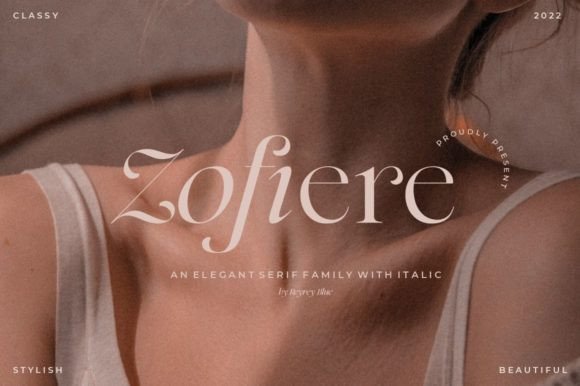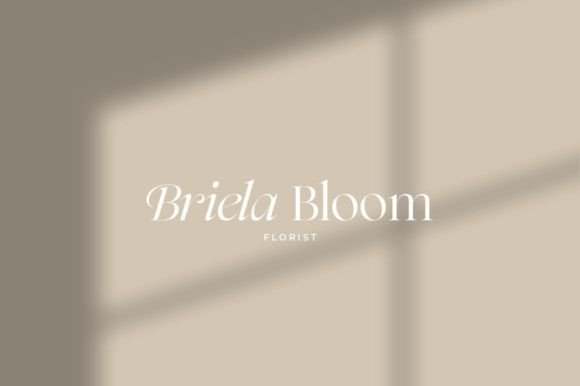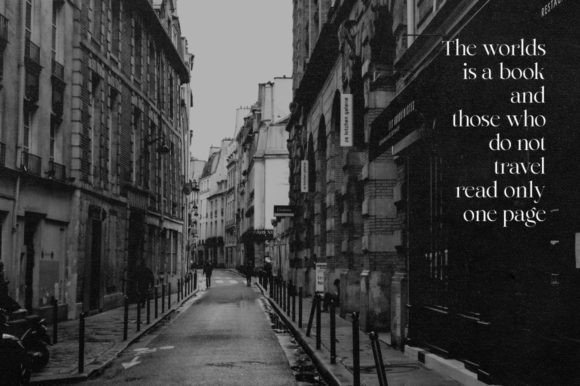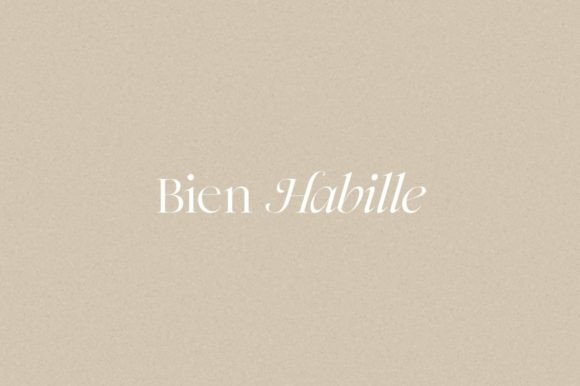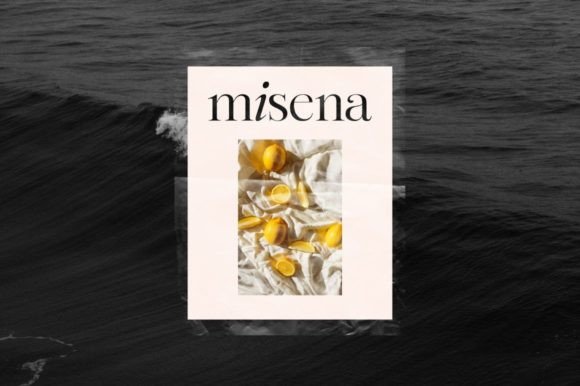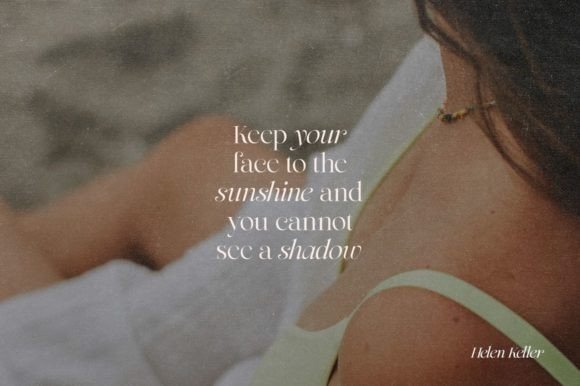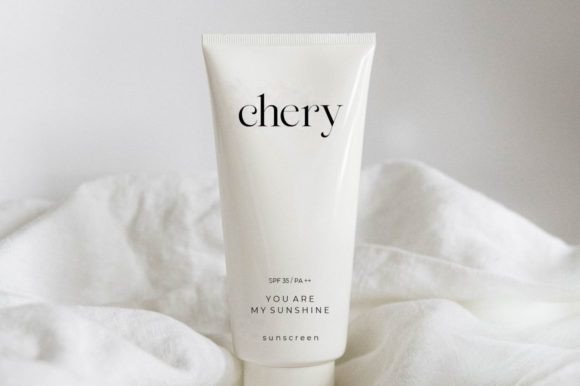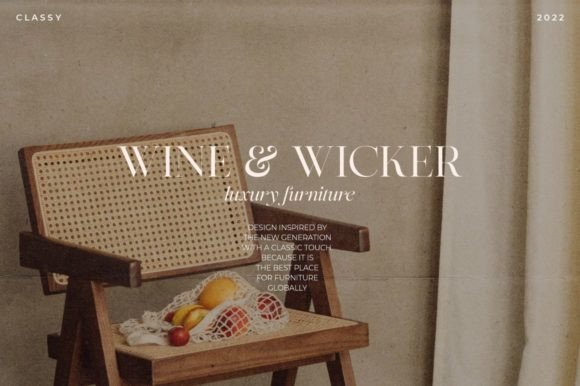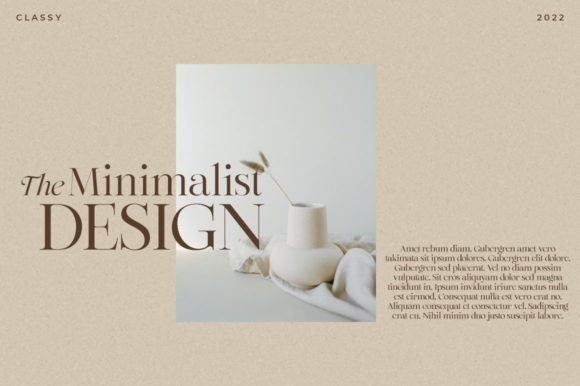
Zofiere Font
Proudly present, Zofiere. It is the new serif typeface with a classy, elegant, and modern look.
Zofiere is perfect for an elegant & luxury logo, book or movie title design, fashion brand, magazine, clothes, lettering, quotes, poster designs, branding, magazines, merchandise, logos, and so much more.